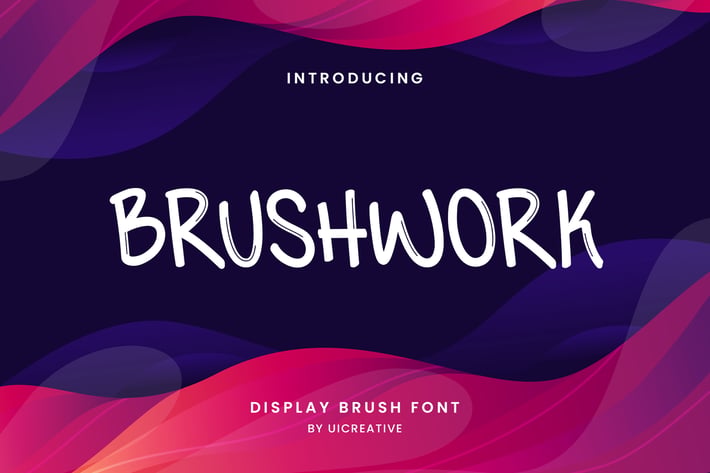
Brushwork Display Brush Font
Introducing our new product the name is Brushwork Display Brush Font. The modern signature font feels beautiful classy, elegant, and modern. This font is perfectly suited for a wide variety of projects, such as signature, stationery, logo, wedding, typography quotes, magazine or book covers, website headers, clothing, branding, packaging design, and more. Also for fashion-related branding or editorial design and displays both masculine and feminine qualities.